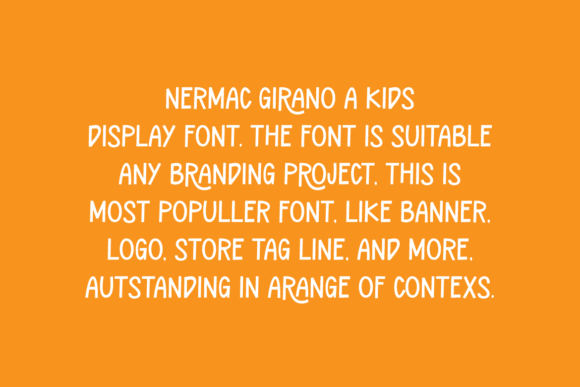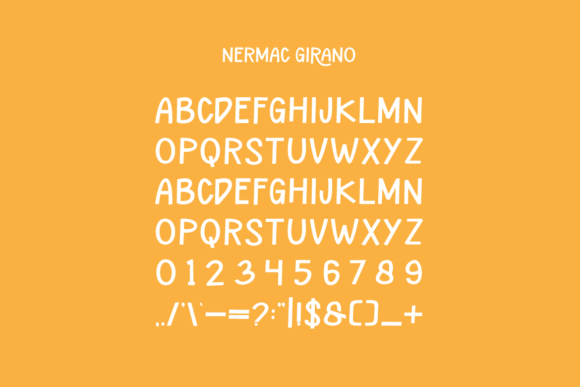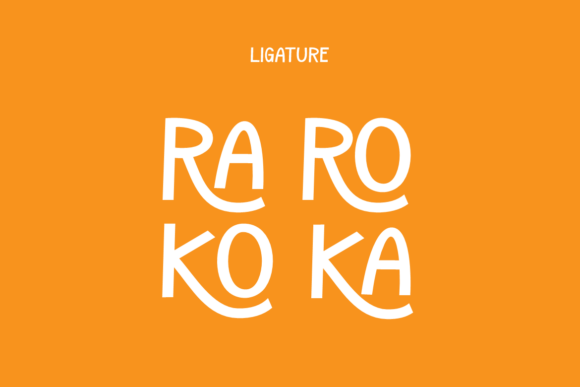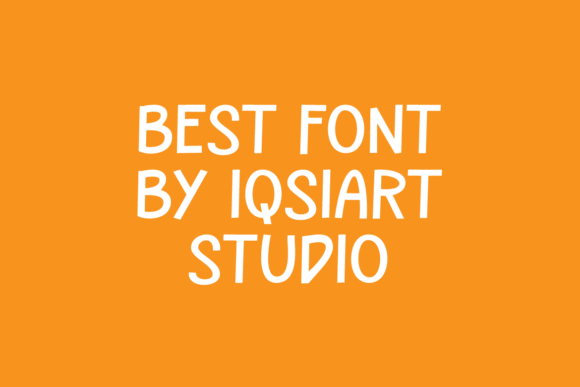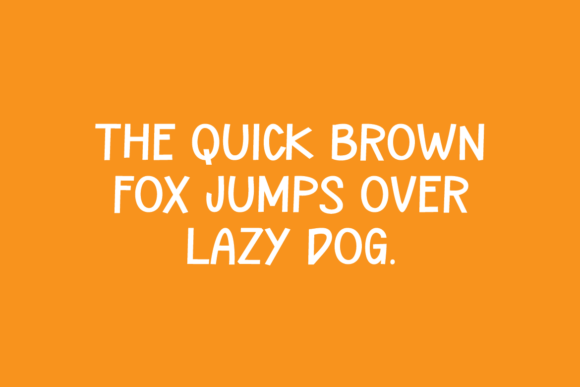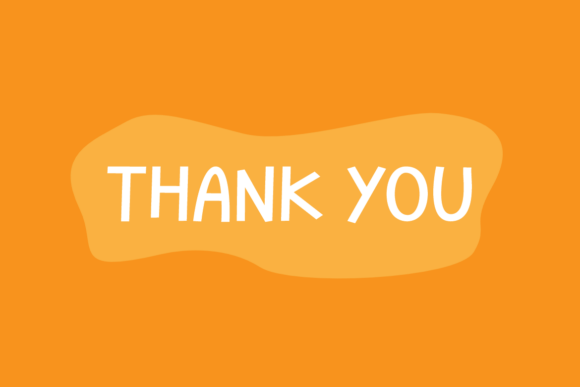
Introduction to Nermac Girano Font Font
Fonts play a crucial role in design, and the Nermac Girano Font font is a typeface that brings both character and versatility to any project. Whether you’re working on a branding project, a website, or a print design, the Nermac Girano Font font offers a unique style that can elevate your work.
Nermac Girano is a playful and cheerful sans serif font perfect for kids.
Its bold and bubbly letters make reading fun and easy Great for games, posters, or any project that needs a happy vibe.
Key Features of Nermac Girano Font Font
Why Choose Nermac Girano Font Font?
The Nermac Girano Font font is more than just a typeface – it’s a design tool that helps you communicate your message with style and clarity. Its unique character set and versatile design make it suitable for a wide range of applications, from elegant invitations to bold headlines.
With its carefully crafted letterforms and balanced proportions, the Nermac Girano Font font ensures readability and visual appeal across all mediums.
What makes Nermac Girano Font font special?
The Nermac Girano Font font stands out with its unique design, exceptional readability, and versatility across various design applications.